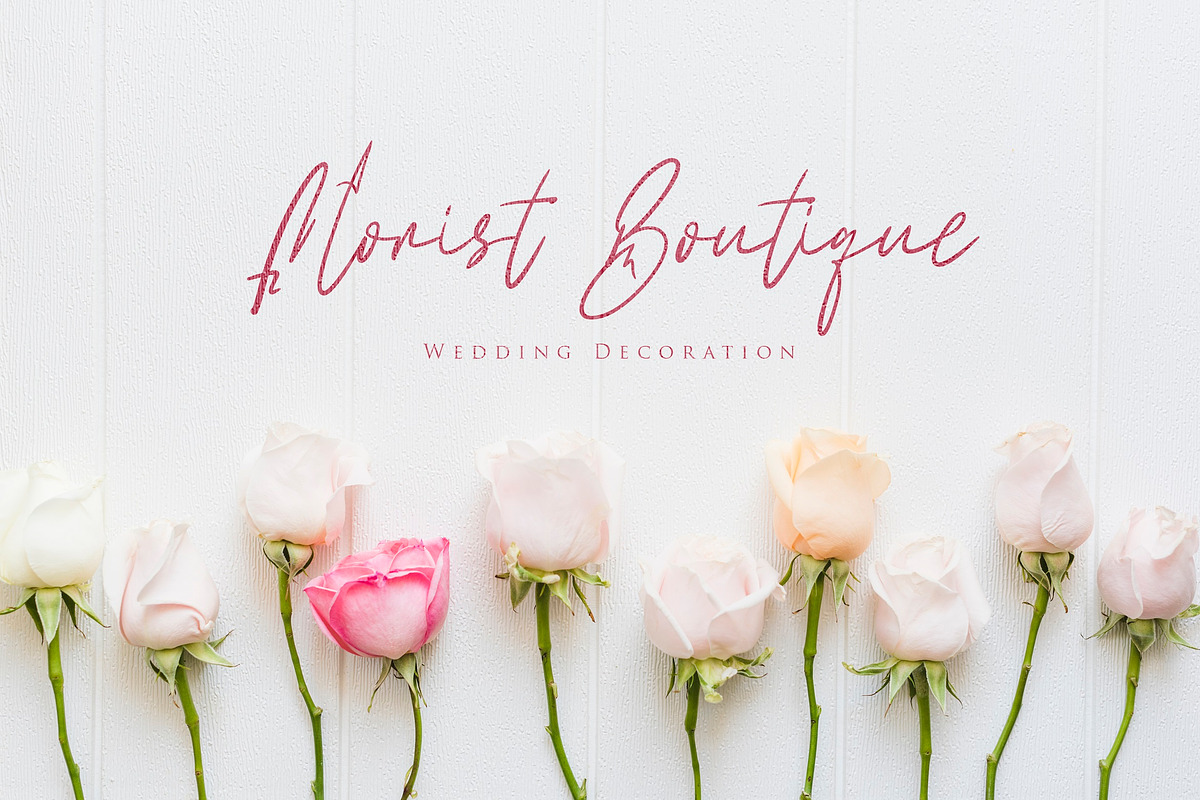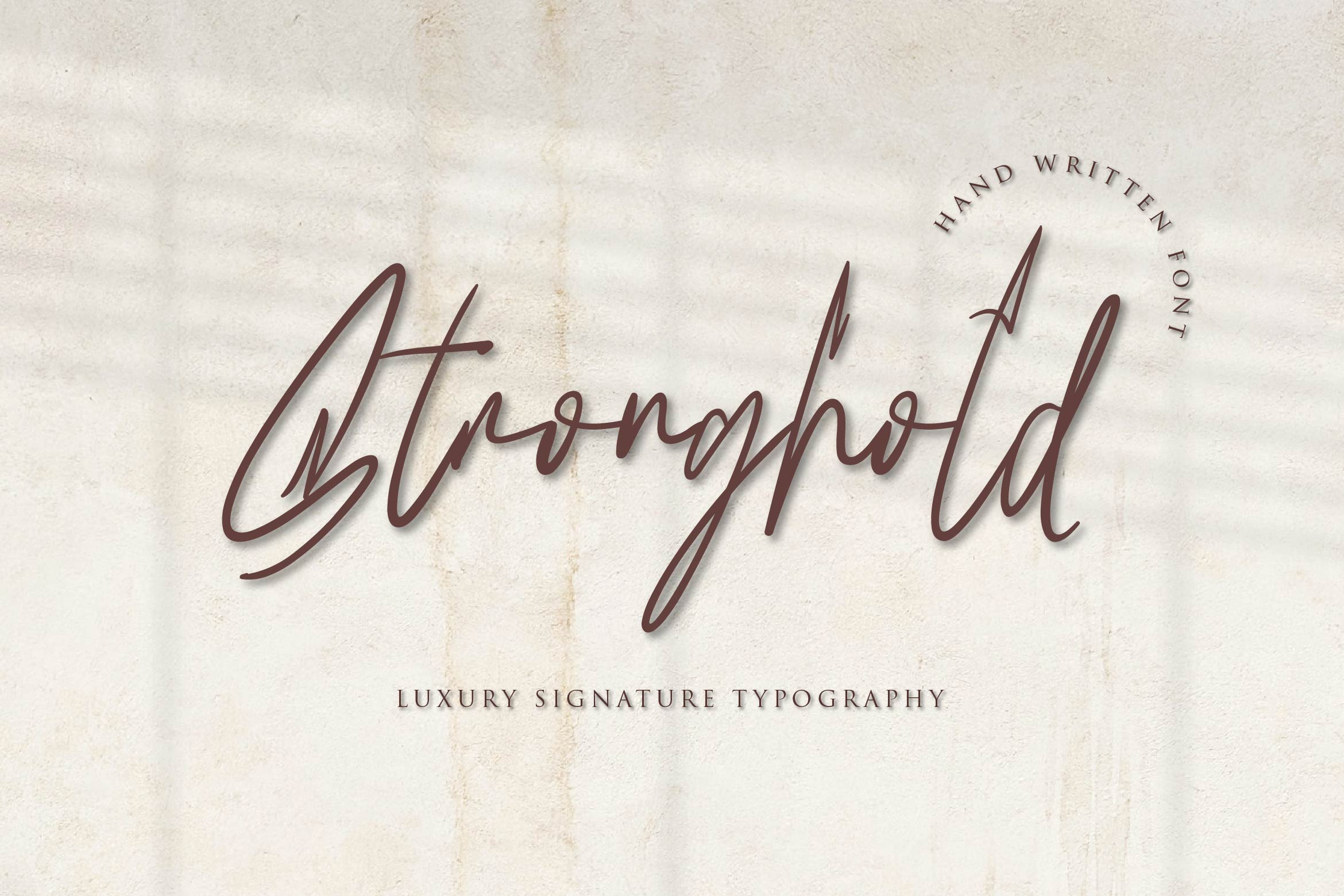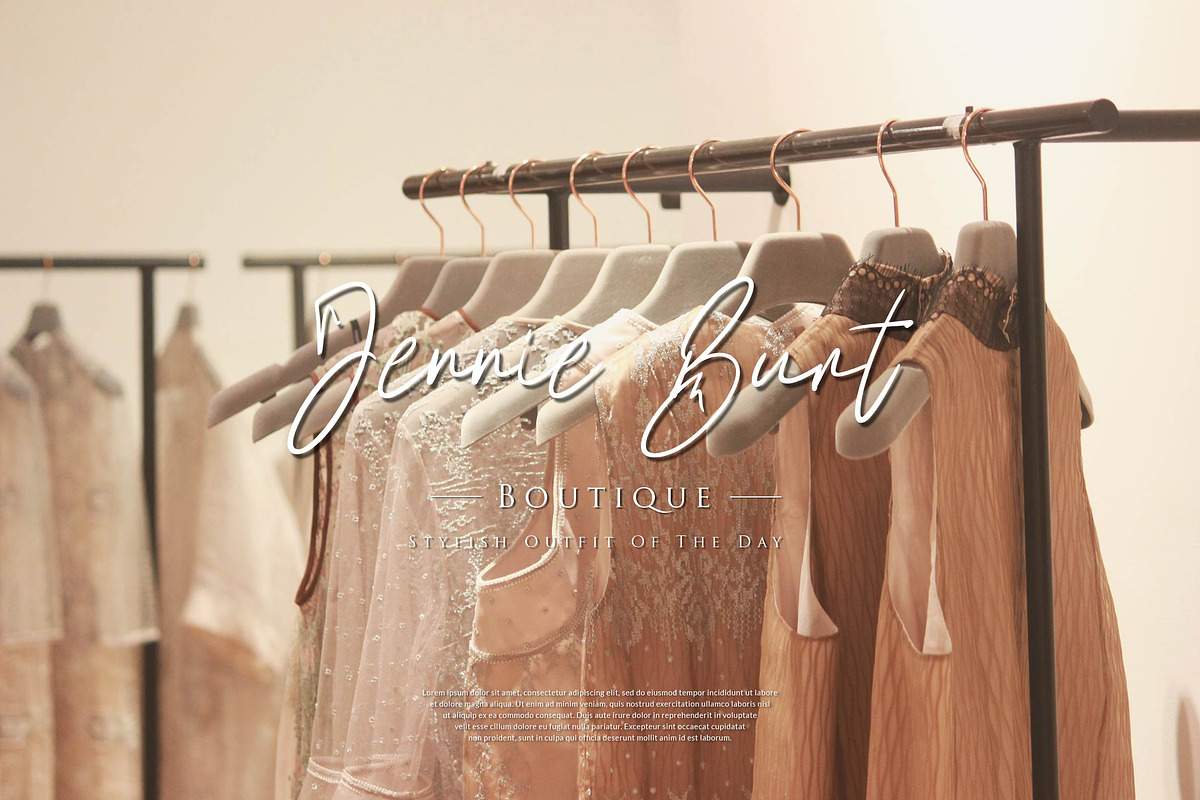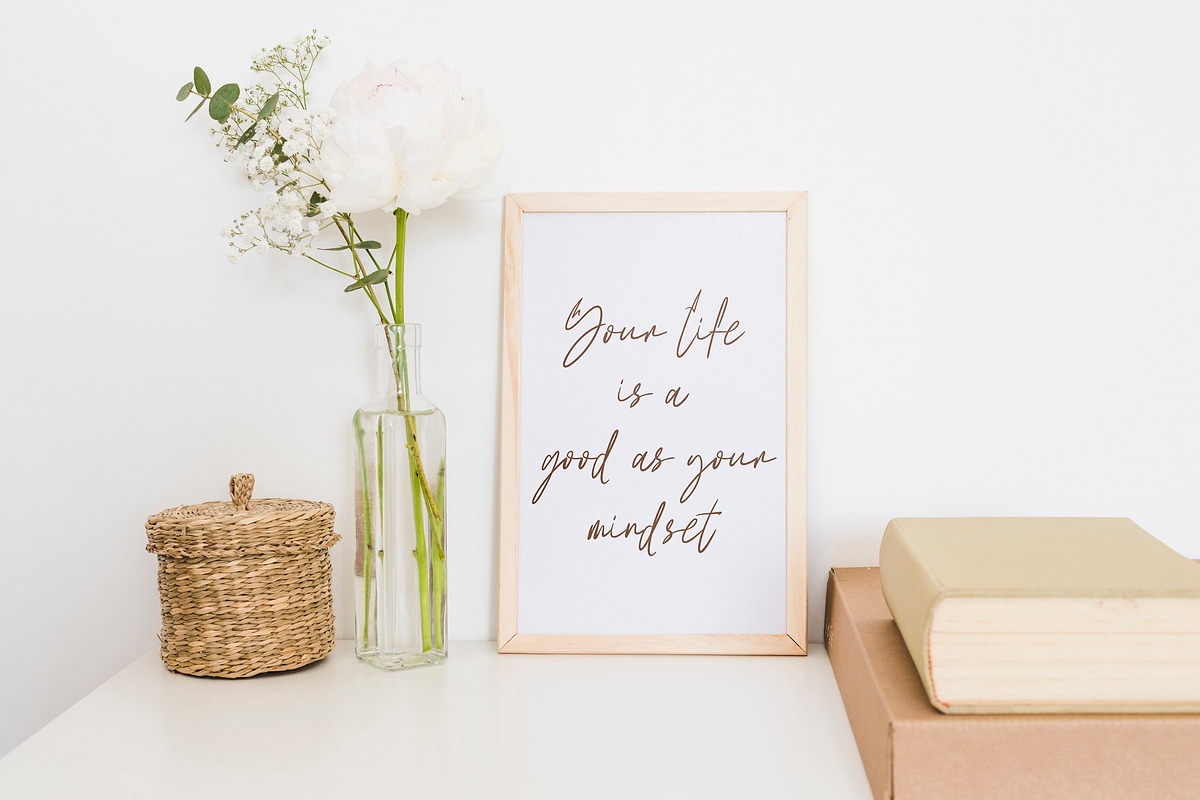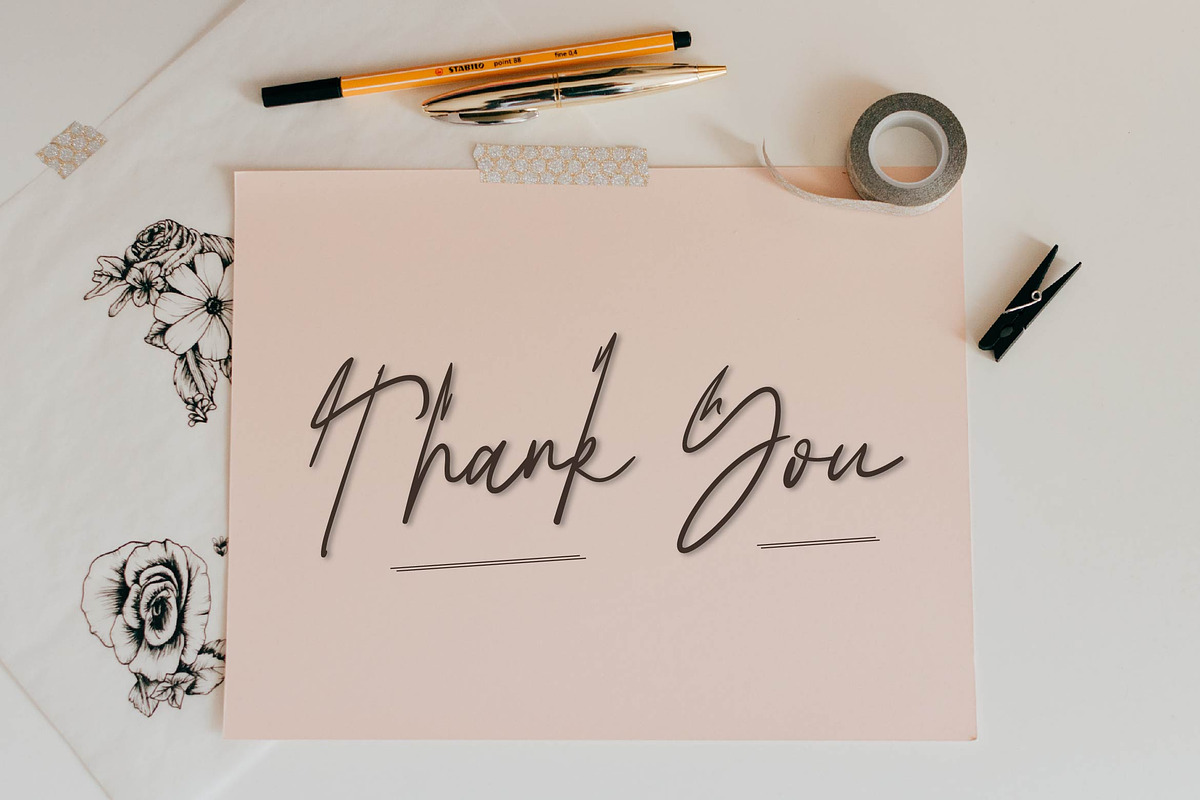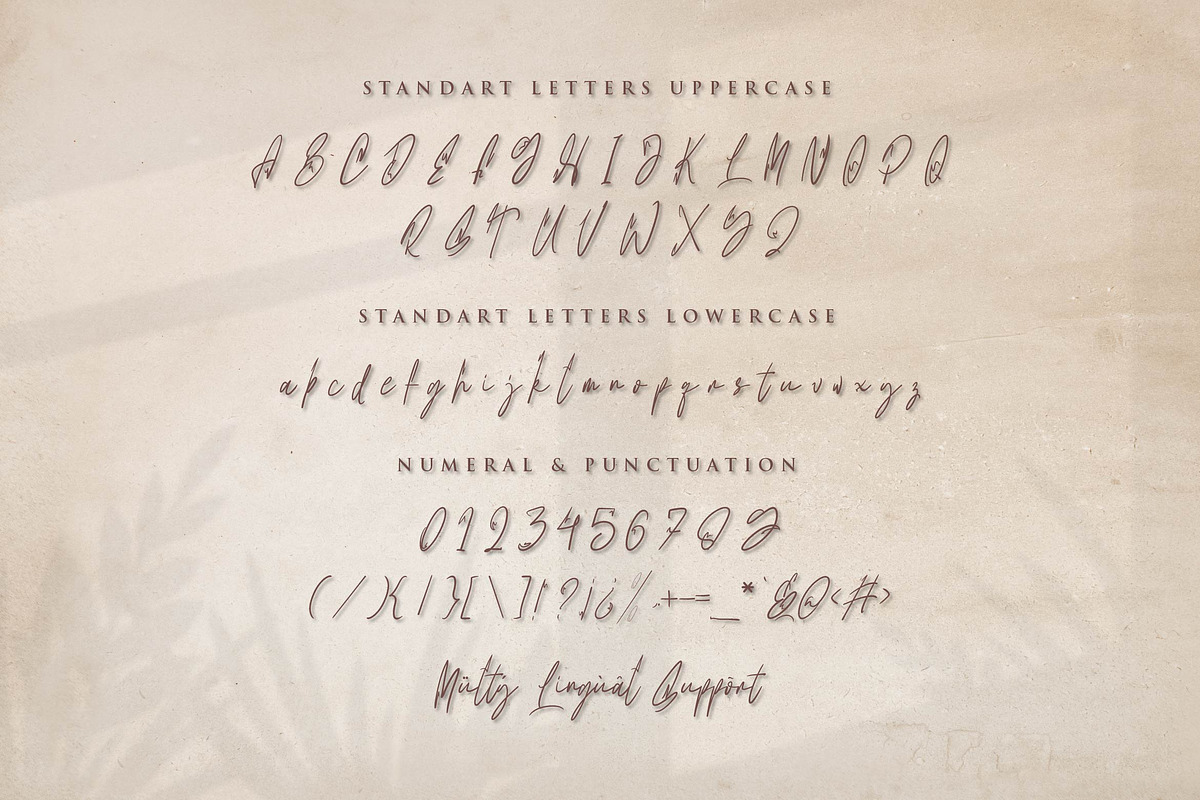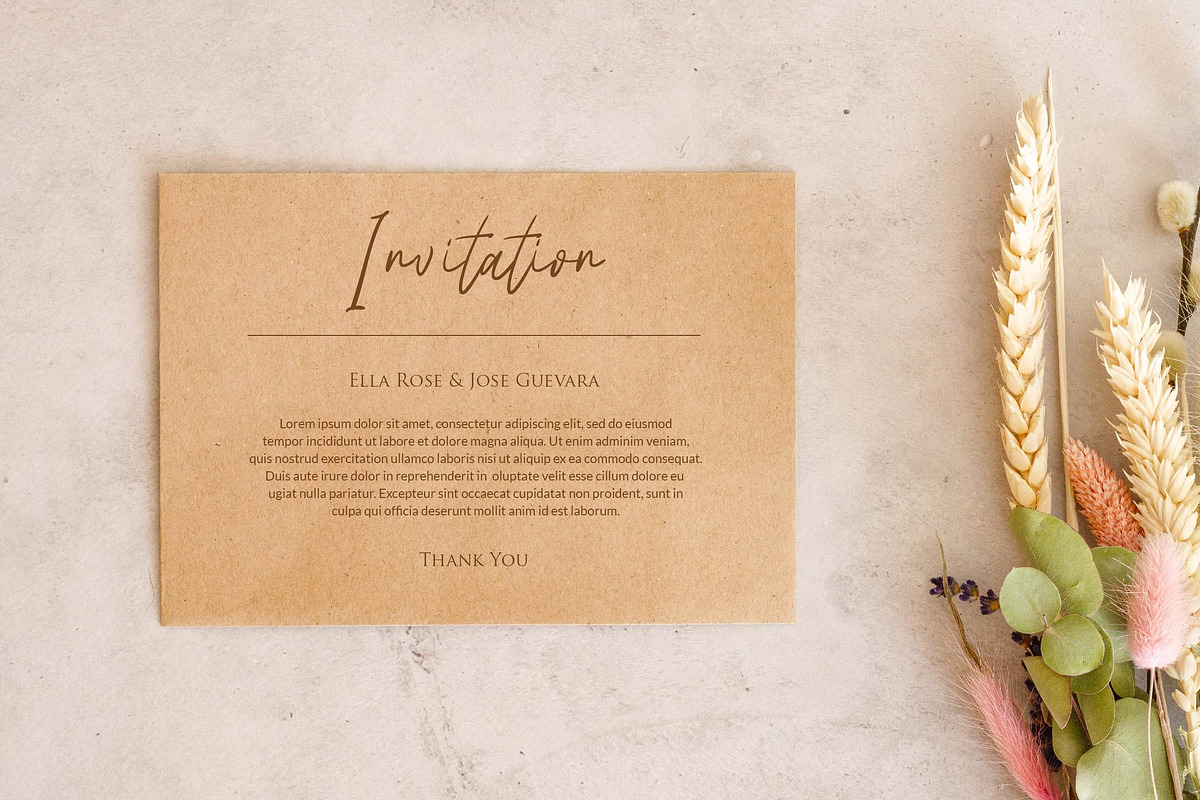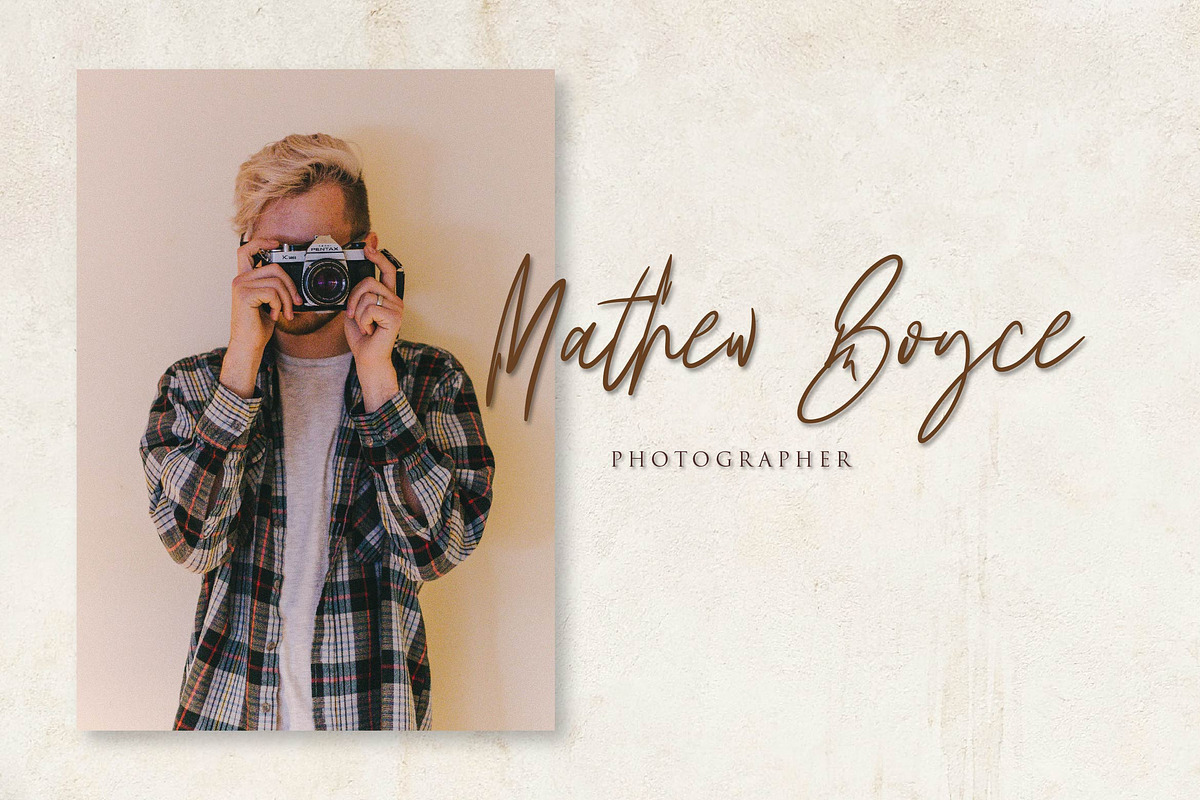
Stronghold - Signature Font
Stronghold is a beautiful signature font for a variety of designs. Stronghold can be used for products such as handcraft, product packaging, quotes, product design, craftsmen, lanels, photography, watermarks, logos & branding. Everything can be accessed using software that supports Opentype, such as Adobe Indesign, Adobe CS IIustrator, Adobe Photoshop CC, and Corel Draw.